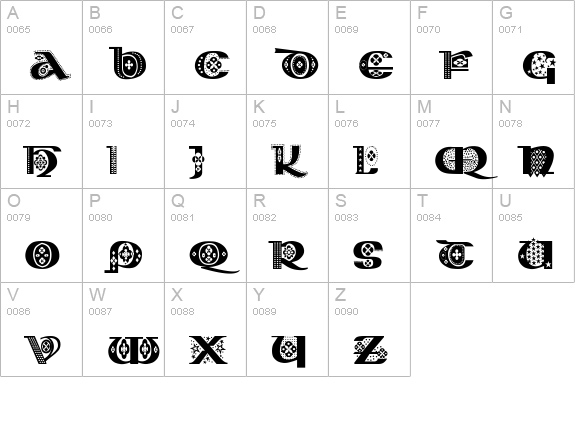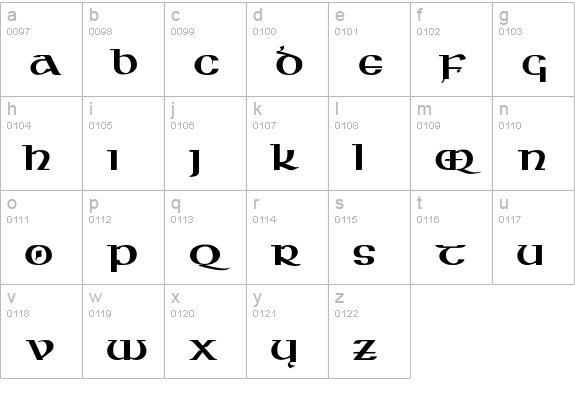
Kingthings Kelltika font is a beautifully crafted typeface that exudes a sense of mystique and ancient charm. It showcases intricate Celtic-inspired letterforms that are sure to captivate any reader's attention. With its elegant curves and unique detailing, this font adds a touch of enchantment and elegance to any design project. One of the most remarkable features of Kingthings Kelltika font is that it is free! Yes, you read that right. This exceptional font is freely available to download at FontsMarket.com, making it accessible to designers, hobbyists, and anyone looking to add a touch of Celtic magic to their work. Whether you are working on a logo design, a book cover, a wedding invitation, or a website, Kingthings Kelltika font will undoubtedly elevate your project to new heights. Its versatile nature allows it to shine in both large headlines and small body text, ensuring that every word is beautifully and legibly portrayed. The attention to detail in this font is truly astonishing. Each letter is meticulously designed with intricate knots and patterns, paying homage to the rich Celtic heritage. This level of craftsmanship not only adds visual interest but also tells a story of ancient artistry and cultural significance. The versatility of Kingthings Kelltika font extends beyond its aesthetics. It is available in multiple font weights, including regular, bold, and italic, allowing you to experiment and find the perfect style for your project. Its wide language support ensures that you can use it in various contexts and reach a global audience. Whether you are a professional designer or a creative enthusiast, Kingthings Kelltika font offers endless possibilities and creative freedom. Its unique blend of elegance, mystique, and cultural significance make it a truly remarkable addition to any typography collection. So why wait? Head over to FontsMarket.com and download Kingthings Kelltika font today, absolutely free. Allow this font to transport your designs to a world of Celtic wonder and make a lasting impression on your audience. Let the magic of Kingthings Kelltika font transform your projects into works of art.